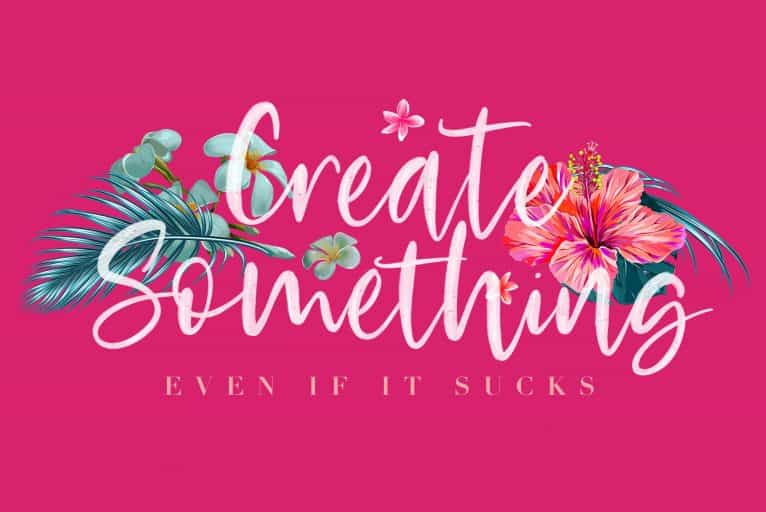
Introducing Rosetta Font. Rosetta SVG Color is a great tool with which you will be able to create amazing graphic titles for your documents because of its painted texture and the color scheme it has. In a few minutes, you can change the color palette to get what you like!The video as a thumbnail is how it works. In one word: easy!